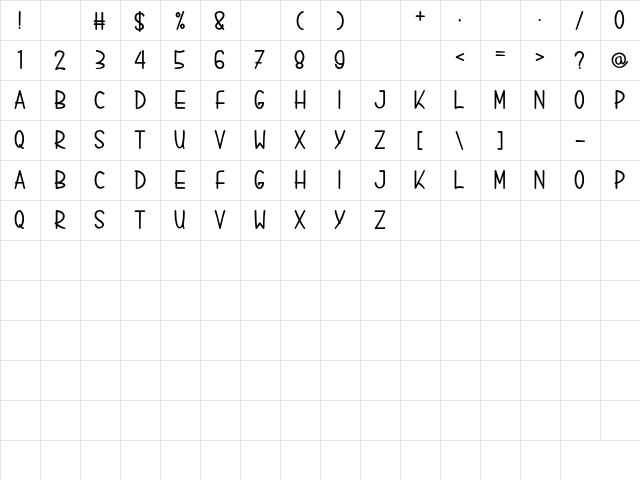
LIQUID BLOSS Regular
Design Context for LIQUID BLOSS Typeface
LIQUID BLOSS is a composed and adaptable typeface that performs quietly and consistently across a wide range of design contexts.